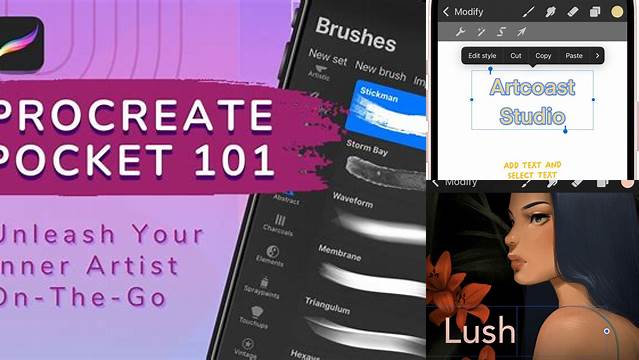
Free Procreate Pocket Fonts: Find & Install The Best!
Hey guys! If you're into digital art using Procreate Pocket on your iPad or iPhone, you know how crucial the right font can be. Typography can make or break your design, adding personality, clarity, and a professional touch to your creations. But let's face it, finding high-quality fonts that are also free can sometimes feel like searching for a needle in a haystack. Don't worry, though! This guide is here to help you discover some awesome free fonts that work perfectly with Procreate Pocket, and how to get them installed.
Why Typography Matters in Procreate Pocket
First, let's talk about why typography is so important in digital art. Typography is more than just picking a font; it's about conveying the right message and creating visual harmony. A well-chosen font can enhance the overall aesthetic of your artwork, making it more engaging and professional. Think about it: the font you use for a fun, bubbly cartoon will be totally different from the one you'd choose for a sophisticated, minimalist design. Choosing the right font sets the tone and communicates the essence of your work. But how do you ensure you pick the right one for your project? One thing to always keep in mind is readability. No matter how cool a font looks, if your audience can't easily read it, the message is lost. So, clarity should always be a priority. Another important aspect is the font's personality. Does it match the overall style and theme of your artwork? A playful, handwritten font might be perfect for a children's book illustration, while a sleek, sans-serif font might be better suited for a modern logo design. Considering these factors will help you narrow down your options and find the perfect font to complement your creation.
Typography is a powerful tool. It can add depth, emotion, and professionalism to your artwork, and it's an essential element of any successful design. With the right font, you can elevate your Procreate Pocket projects and create stunning visuals that truly stand out. Experimenting with different fonts can spark creativity and help you discover new ways to express your artistic vision. Don't be afraid to step outside your comfort zone and try something new! You might just stumble upon your next favorite font. Remember, typography is not just about aesthetics; it's about communication. It's about conveying your message in a way that is clear, engaging, and visually appealing. So, take the time to explore the world of fonts and find the perfect ones to bring your Procreate Pocket creations to life. Happy designing!
Where to Find Free Fonts
Alright, let's dive into where you can actually find these elusive free fonts. There are tons of websites out there, but not all of them are created equal. You want to make sure you're downloading fonts from reputable sources to avoid any sketchy stuff like malware or copyright issues. One of the best places to start is Google Fonts. Google Fonts offers a massive library of open-source fonts that are completely free to use, even for commercial projects. The best part? They're super easy to browse and download. Just head over to the website, type in what you are looking for, and start downloading your favorite typefaces! Another excellent resource is DaFont. DaFont has been around for ages and is a go-to for many designers. They have a huge selection of fonts, and while not all of them are free for commercial use, they clearly indicate the licensing terms for each font. Make sure you double-check the license before using a font in a project that you plan to sell. Besides the above, check Fontspace as well. Fontspace is another great option with a wide variety of free fonts. They also have a user-friendly interface and clear licensing information. Like DaFont, make sure you read the fine print before using a font commercially. For a more curated selection, you might want to check out Creative Market and Envato Elements. While these are primarily marketplaces for premium design resources, they often offer free font bundles as part of their promotional campaigns. Keep an eye out for these deals – you can score some really high-quality fonts without spending a dime.
Moreover, don't overlook smaller, independent font foundries. Many of these foundries offer free demo versions of their fonts, which can be a great way to try out a font before committing to a purchase. Plus, you'll be supporting independent designers! Just do a little digging and you might discover some hidden gems. When searching for free fonts, it's always a good idea to use specific keywords to narrow down your results. For example, instead of just searching for "free fonts," try something like "free handwritten fonts" or "free sans-serif fonts for logos." This will help you find fonts that are more relevant to your specific needs. Remember to always read the licensing terms carefully before using any font. Even if a font is free, it may have restrictions on how you can use it. Some fonts may only be free for personal use, while others may require attribution. Make sure you understand the terms before incorporating a font into your project to avoid any legal issues down the road. Finally, don't be afraid to experiment! Try out different fonts and see what works best for your style and project. The more you explore, the better you'll become at choosing the right fonts for your designs. Happy font hunting!
Managing and Organizing Your Fonts
Now that you've got a bunch of fonts installed, it's time to think about managing them. Having a good system for organizing your fonts can save you a lot of time and frustration in the long run. Trust me, scrolling through a massive list of fonts every time you want to add text to your artwork gets old really fast. One simple way to organize your fonts is to create categories based on style. For example, you could have categories like "Serif," "Sans-Serif," "Script," and "Decorative." You can then move your fonts into the appropriate categories, making it easier to find the right font for your project. Some font management apps, like iFont, allow you to create custom categories and tags. This can be a great way to further organize your fonts and make them even easier to find. For example, you could tag fonts based on their intended use, such as "Logos," "Headings," or "Body Text." Another helpful tip is to use a consistent naming convention for your fonts. This will make it easier to identify fonts at a glance and avoid confusion. For example, you could start each font name with the foundry name or the style of the font. Regularly pruning your font collection is also a good idea. Over time, you'll probably accumulate a lot of fonts that you don't actually use. Get rid of these fonts to declutter your collection and make it easier to find the ones you actually need. You can always download them again later if you change your mind. Font management is an ongoing process. As you add more fonts to your collection, you'll need to continually update your organization system to keep things tidy. With a little effort, you can create a system that works for you and makes it easy to find the perfect font for any project.
Furthermore, there are a few things you can do to optimize your font collection for performance. First, avoid installing too many fonts. The more fonts you have installed, the slower your device may run. Only install the fonts that you actually need and use regularly. Second, be mindful of the size of your font files. Large font files can take up a lot of storage space and slow down your device. If you have a lot of large font files, consider compressing them or deleting them altogether. Third, keep your font management app up to date. Font management apps often include performance optimizations that can help improve the speed and stability of your device. By following these tips, you can keep your font collection organized and optimized for performance. This will make it easier to find the fonts you need and ensure that your device runs smoothly. Remember, a well-managed font collection is a happy font collection! So, take the time to organize your fonts and keep them in good shape. Your future self will thank you for it.
Choosing the right font can feel overwhelming, but here are a few tips to help you out. First, consider the overall tone and style of your artwork. Are you going for a fun, playful look, or something more serious and sophisticated? The font you choose should reflect the overall mood of your piece. Second, think about the readability of the font. Is it easy to read at different sizes? A fancy, decorative font might look great at a large size, but it could be illegible at a smaller size. Third, pay attention to the spacing and kerning of the font. Is the spacing between the letters consistent and pleasing to the eye? Poor spacing can make a font look awkward and unprofessional. Fourth, don't be afraid to experiment with different fonts. Try out a few different options and see what works best for your project. You might be surprised at what you discover. Fifth, get feedback from others. Show your artwork to friends, family, or other designers and ask for their opinion on the font you've chosen. A fresh perspective can be invaluable. Choosing the right font is a process of trial and error. Don't be afraid to make mistakes and learn from them. The more you experiment, the better you'll become at selecting fonts that complement your artwork and enhance your message. And remember, there's no such thing as a perfect font. The best font is the one that works best for your specific project and audience.
Choosing a font involves technical considerations. Before anything else, check the font's license to see if it's free for commercial use. Also, check the formats supported by the programs you are using, to be sure to choose compatible fonts. Before choosing a font for a design, it's essential to check its legibility, especially if you plan to use it in small sizes. Different fonts will respond differently to size reductions, and if the design becomes illegible, it won't serve its purpose. To make sure the chosen font is suitable, do some tests at various sizes and in different contexts. Another important technical consideration is the variety of weights and styles that the font offers. A font family with a variety of weights (light, regular, bold, etc.) and styles (italic, condensed, etc.) will give you greater design flexibility. Also, check the glyphs, or special characters that the font contains. Some fonts include a greater variety of symbols and accented characters, which may be necessary depending on the language and design needs. Consider the technical aspects to ensure that the font works well with the design and communication requirements of the project. By keeping the above tips in mind, you'll be well on your way to choosing fonts that will elevate your Procreate Pocket creations. Happy designing, folks!